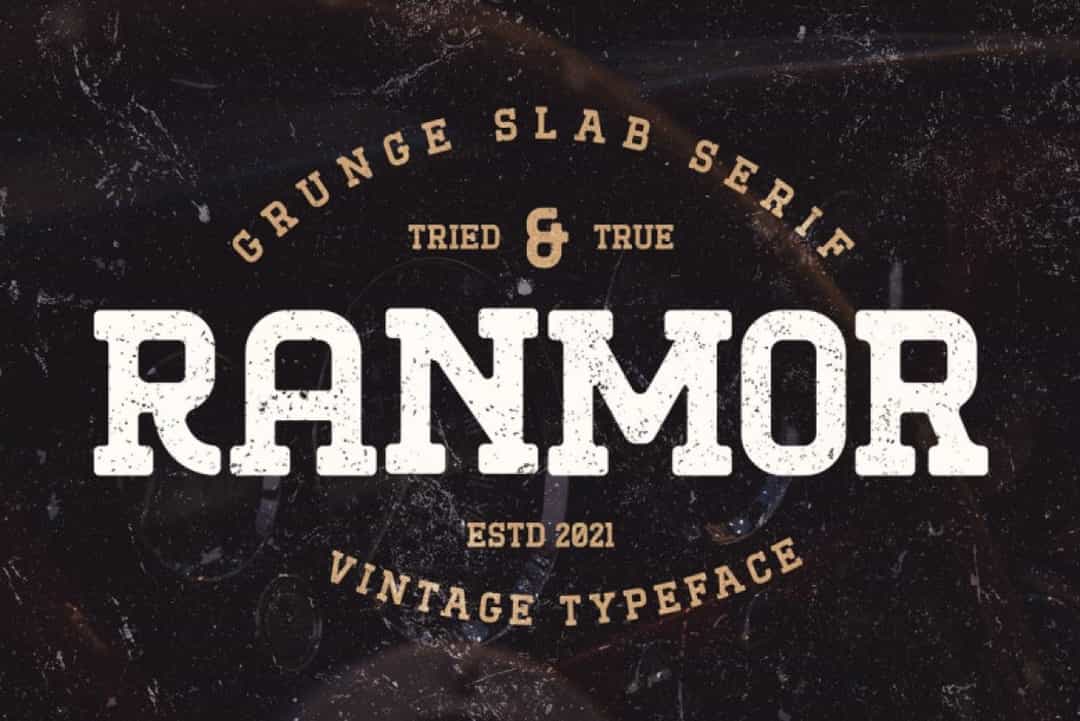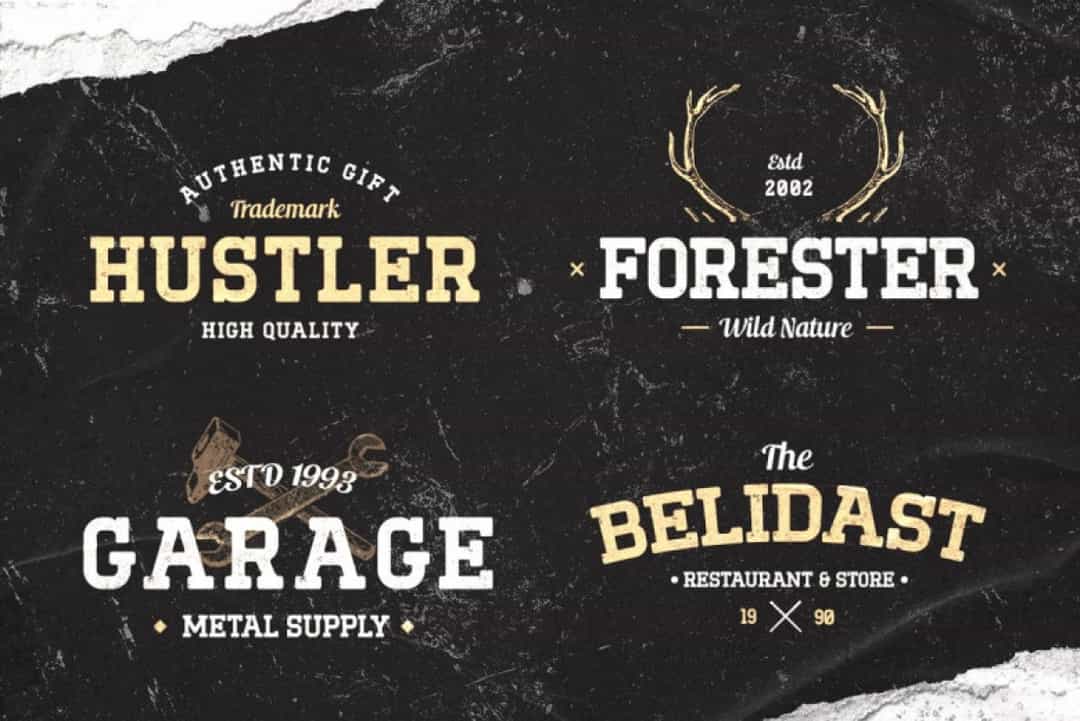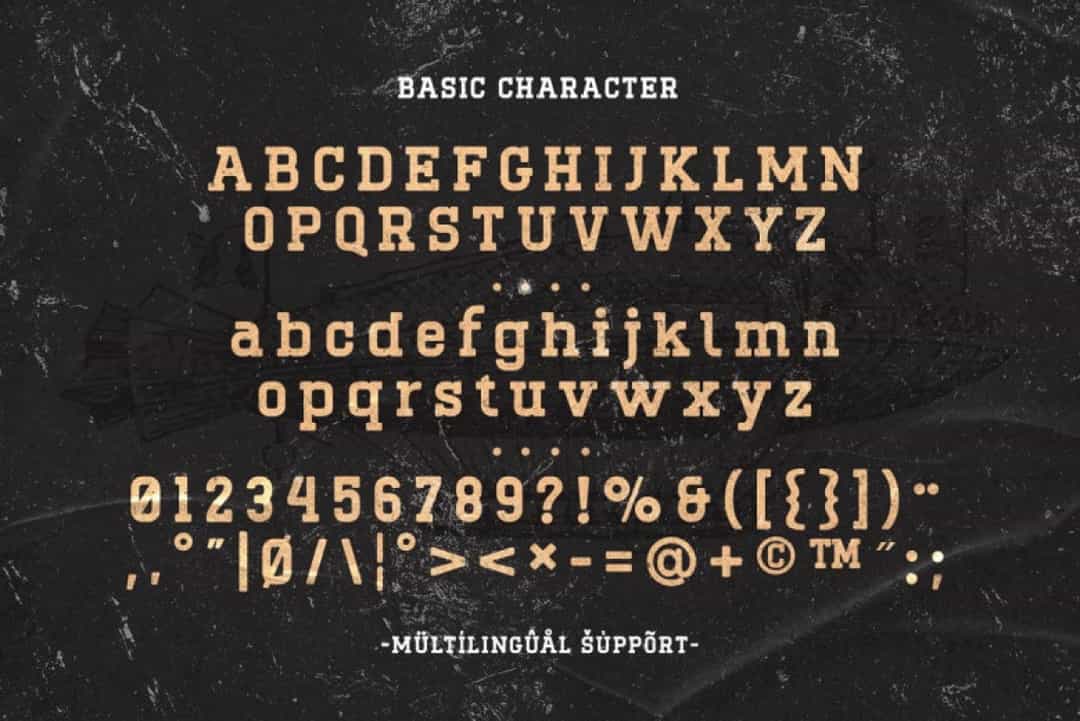
Ranmor is a vintage slab serif typeface. Inspired by vintage logos & design, Ranmor gets the more strong typeface by adding the grunge feels, and inky effect on the letterforms. This font is a perfect choice for vintage or old-school themes.